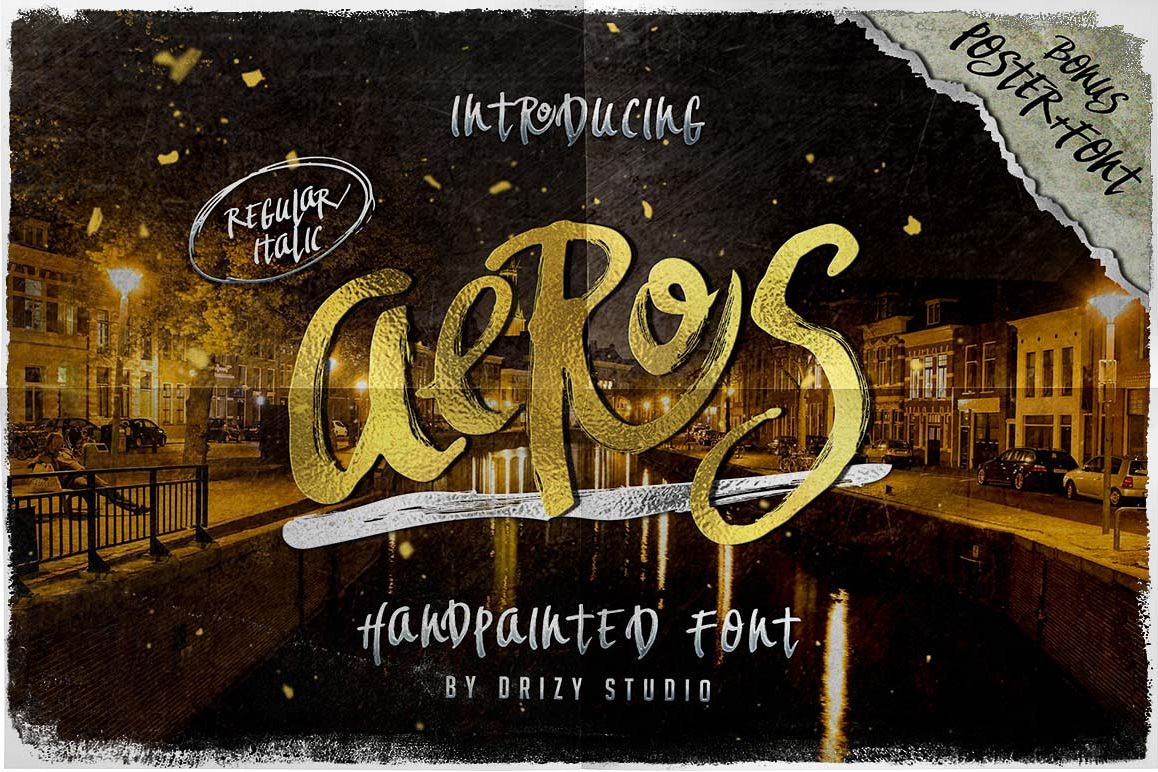
Aeros + Extra Font Roast
Aeros Italic
Aeros
Roast
Aeros Handpainted Typeface was inspired from ink & tints manual hand drawn brush to make a natural messy, rough, strong, grunge for any designs requirements. Available in 2 weights Regular and Italic. Could help to good display, uses for labeling, clothing, movie sceen, film title, gigs, band logo, book cover, or cover album, etc. Included is a bonus 'Extra Font Roast' and 'Flyer Template'.